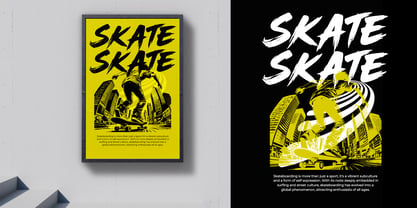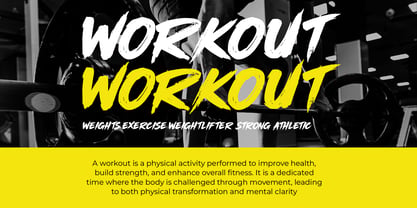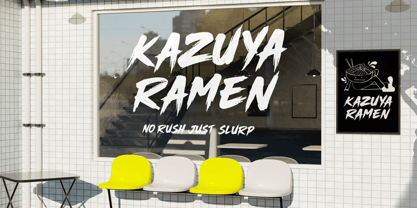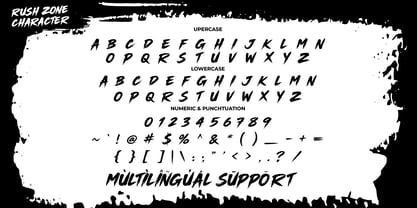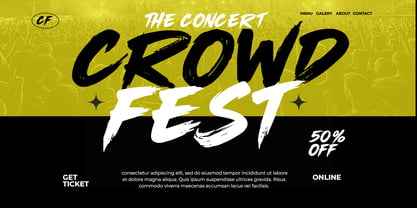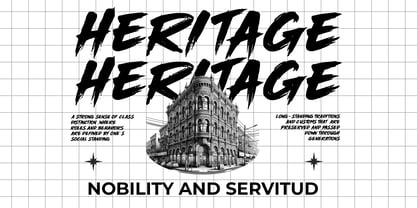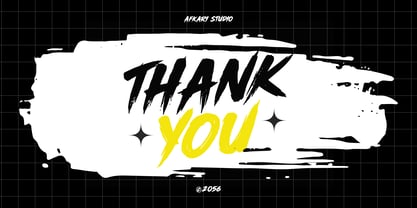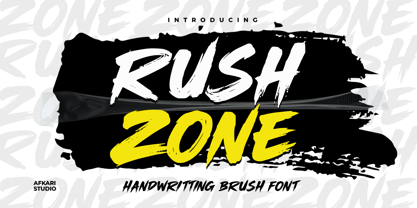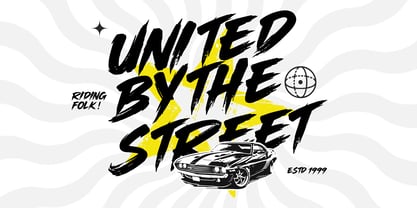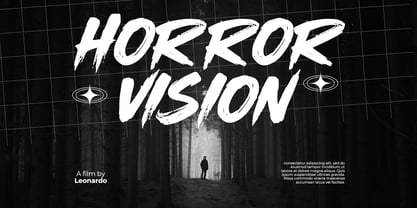
Rush Zone
The Rush Zone Font Family was designed by Musthafa Kamal Emje and published by Afkari Studio. Rush Zone contains 1 styles. More about this family
Rush Zone is a bold handwriting brush font crafted to deliver energetic, expressive, and natural typography for modern creative projects. Inspired by fast brush strokes and spontaneous handwriting movement, this font captures a strong handcrafted character that instantly attracts attention. Designed for designers who need typography with dynamic personality, Rush Zone combines strong brush textures with excellent readability, making it perfect for impactful headlines and branding visuals. Whether used for posters, branding, packaging, merchandise, or social media graphics, Rush Zone adds an authentic hand-painted feel that makes designs look bold and alive across both digital and print media. Features; - Bold and expressive brush strokes - Natural handwritten movement - Numbers & punctuation - Strong readability for headlines - Ideal for branding & signature logos - Accessible in Adobe Illustrator, Adobe Photoshop, Adobe InDesign, and even work on Microsoft Word - PUA Encoded Characters – Fully accessible without additional design software. - Mültîlíñgúãl Sùppört for; ä ö ü Ä Ö Ü ß ¿ ¡ Whether you're creating bold branding, energetic posters, or expressive promotional materials, Rush Zone helps your design stand out with dynamic personality and handcrafted warmth. Add a powerful and lively brush lettering style to your next creative project.